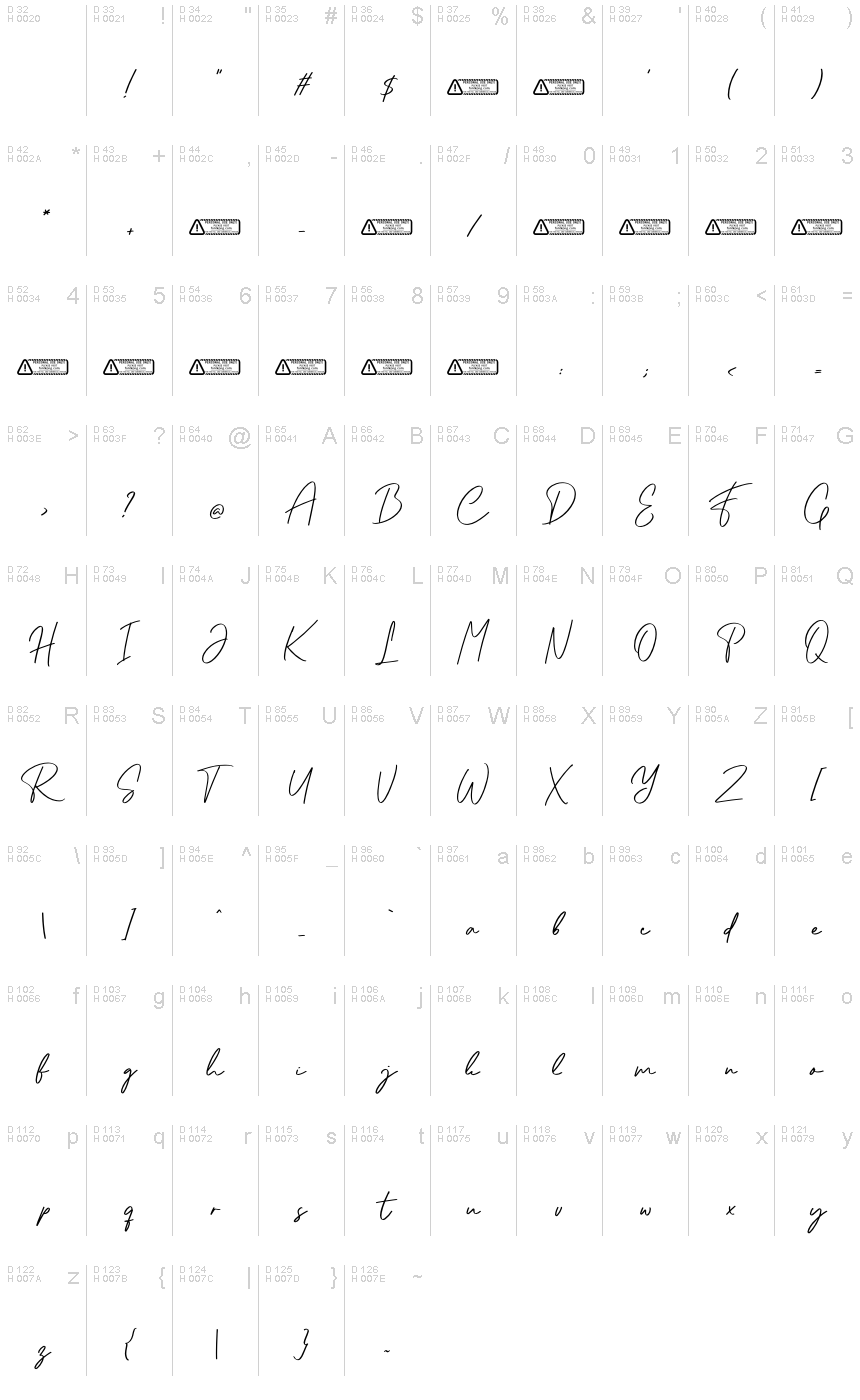
Willybery font by Kong Font exudes elegance with its handwritten, signature style and light weight. This charming typeface captures the fluidity of personal handwriting, offering a touch of authenticity and elegance to your designs. Best suited for projects requiring a personal touch, Willybery is perfect for branding, invitations, and creative digital projects.
Its unique aesthetic makes it ideal for applications that demand a sense of sophistication and individuality. Whether you're looking to craft stunning graphics or design eye-catching social media posts, the Willybery font can enhance your project's visual appeal effortlessly.